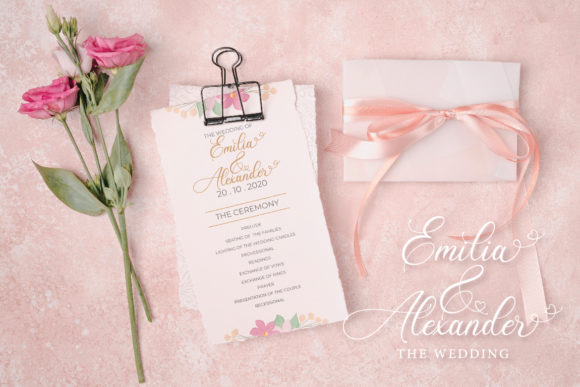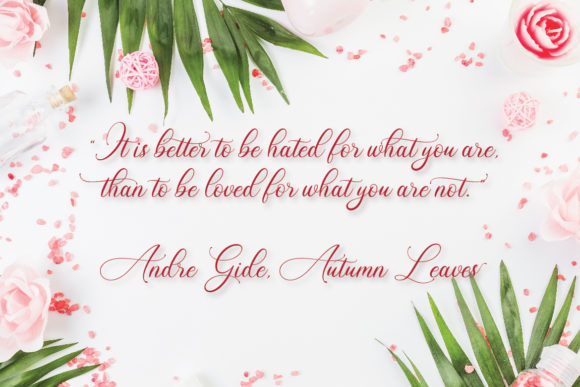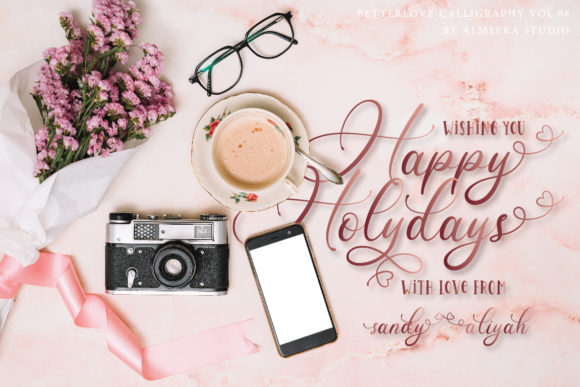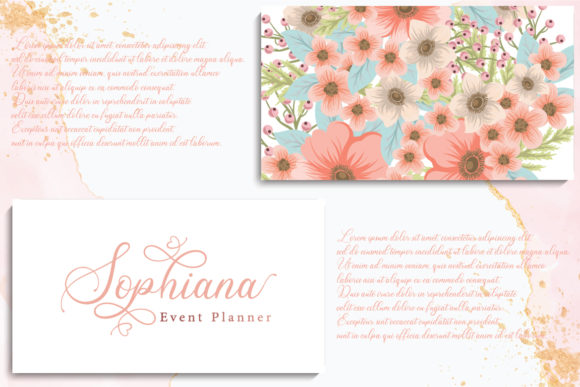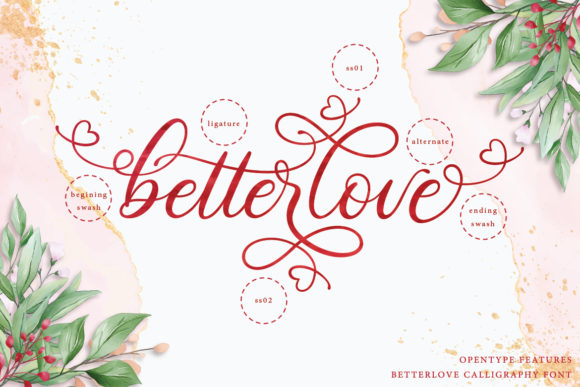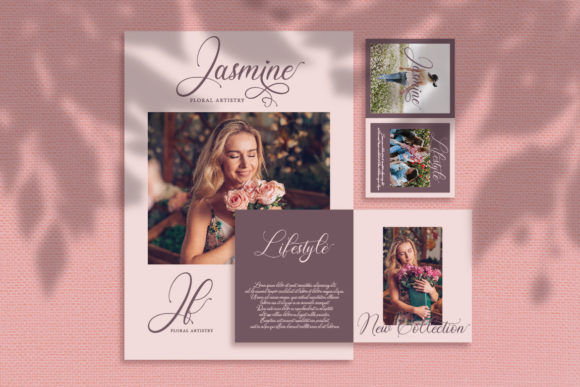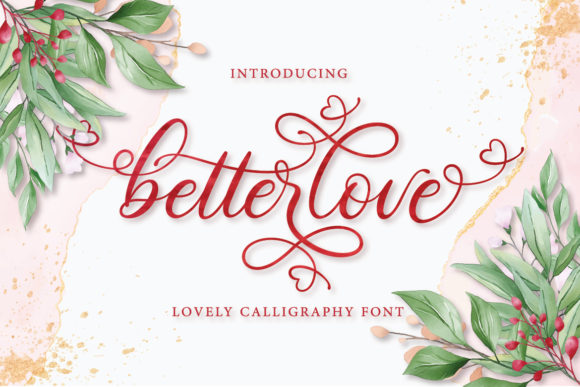
Betterlove Font: Elevate Your Designs with Luxurious Calligraphy
Are you looking for a font that exudes luxury and sophistication? Look no further than Betterlove Font, a stunning calligraphy font that is sure to elevate your designs. With its natural handwriting feel and incredibly luxurious aesthetic, Betterlove is perfect for a wide range of projects, from logotypes and wedding invitations to crafting and Valentine’s Day designs.
What Makes Betterlove Font So Special?
Betterlove Font is a beautifully crafted calligraphy font that boasts a natural, hand-written feel. Its elegant strokes and flourishes make it perfect for designs that require a touch of sophistication and glamour. Whether you’re a designer, crafter, or DIY enthusiast, Betterlove Font is sure to become a go-to in your font collection.
Key Features of Betterlove Font
• PUA Encoding: Betterlove Font is PUA encoded, which means you can access all of the stunning glyphs and swashes with ease. This makes it simple to customize your designs and add unique touches.
• Alternate Glyphs and Ligatures: The font features a wealth of special features, including alternate glyphs and ligatures. These allow you to add variety and interest to your designs, making them truly one-of-a-kind.
• Natural Handwriting Feel: Betterlove Font has a natural, hand-written feel that makes it perfect for designs that require a personal touch.
• Luxurious Aesthetic: The font’s luxurious aesthetic makes it perfect for high-end designs, such as wedding invitations, luxury branding, and upscale crafting projects.
Use Cases for Betterlove Font
Betterlove Font is incredibly versatile and can be used for a wide range of projects, including:
• Logotypes: Create stunning logotypes that showcase your brand’s personality and style.
• Cricut and Silhouette Projects: Use Betterlove Font to add a touch of elegance to your Cricut and Silhouette projects, such as custom signs, cards, and decorations.
• Wedding Invitations: Make your wedding invitations truly special with Betterlove Font’s luxurious calligraphy.
• Valentine’s Day Designs: Create beautiful Valentine’s Day designs, such as cards, gifts, and decorations, with Betterlove Font’s romantic feel.
• Crafting Projects: Add a touch of sophistication to your crafting projects, such as scrapbooking, journaling, and card making.
Tips for Using Betterlove Font
To get the most out of Betterlove Font, here are a few tips:
• Experiment with Glyphs and Swashes: Take advantage of Betterlove Font’s PUA encoding and experiment with different glyphs and swashes to add unique touches to your designs.
• Pair with Other Fonts: Pair Betterlove Font with other fonts to create interesting and dynamic designs.
• Use for Headlines and Titles: Use Betterlove Font for headlines and titles to add a touch of luxury and sophistication to your designs.
Betterlove Font is a stunning calligraphy font that is sure to elevate your designs. With its natural handwriting feel, luxurious aesthetic, and wealth of special features, it’s perfect for a wide range of projects. Whether you’re a designer, crafter, or DIY enthusiast, Betterlove Font is a must-have in your font collection.